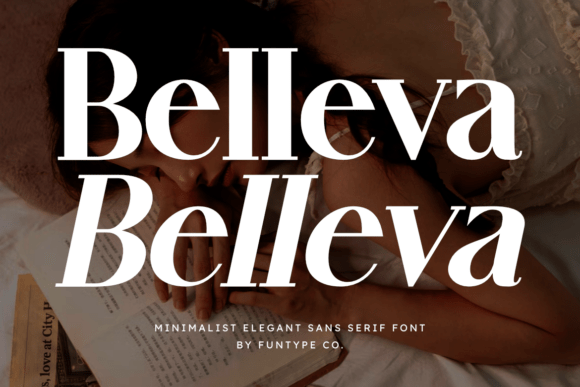
The Elegance of Belleva Font: Elevate Your Designs with Sophistication
I still remember the frustration of working on a high-end fashion magazine project, searching for the perfect font that exuded luxury and modernity. The design brief required a serif font that would bring a touch of classic elegance to the pages, but with a contemporary twist. After hours of browsing through font libraries, I stumbled upon Belleva Font, and it was love at first sight! ✨ In this article, I’ll share my experience with Belleva, its features, and how to make the most of this beautiful font in your designs.
An Honest Review of Belleva Font
What I Love About Belleva
• ✨ Sophisticated serif design that exudes luxury and high-class aesthetics
• ✅ Unique contrast and refined curves that bring a touch of modern editorial style to any design project
• ✅ Effortless chic that elevates any design, whether it’s a high-end brand identity, a sleek fashion magazine, or premium wedding stationery
• ✅ Both Regular and Italic versions are included, allowing you to create dynamic layouts with a cohesive look
While Belleva Font is an excellent choice for many design projects, there are a few things to keep in mind: 🤔
• ⚠️ Limited font weights: Currently, Belleva is available in Regular and Italic versions, which might not be sufficient for projects that require a wide range of weights.
• ⚠️ Glyphs and OpenType features: While Belleva supports OpenType features, some users might find the glyph selection and alternates a bit limited.
The Story Behind Belleva Font
Belleva Font was designed with the goal of bridging the gap between classic elegance and contemporary minimalism. The designer aimed to create a font that would exude luxury and sophistication while still feeling modern and fresh. Inspired by the beauty of high-end fashion and editorial design, Belleva was crafted to bring a touch of effortless chic to any design project.
Q: What is the personality of Belleva Font?
A: Belleva Font has a sophisticated and elegant personality, perfect for high-end branding, fashion, and editorial design.
Q: Does Belleva Font support OpenType features?
A: Yes, Belleva Font supports OpenType features, including ligatures and stylistic alternates.